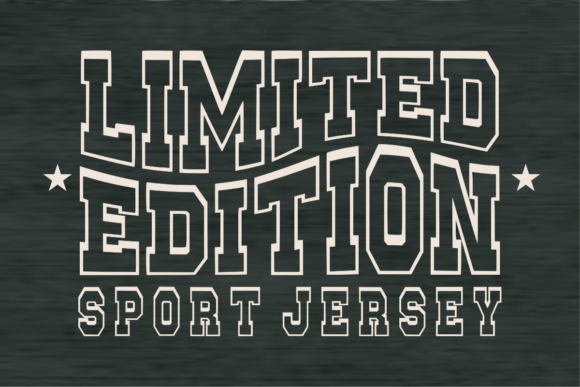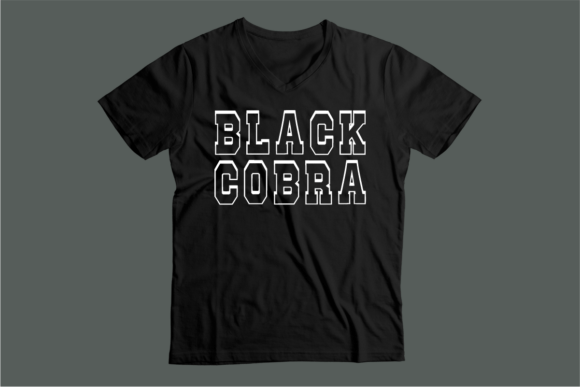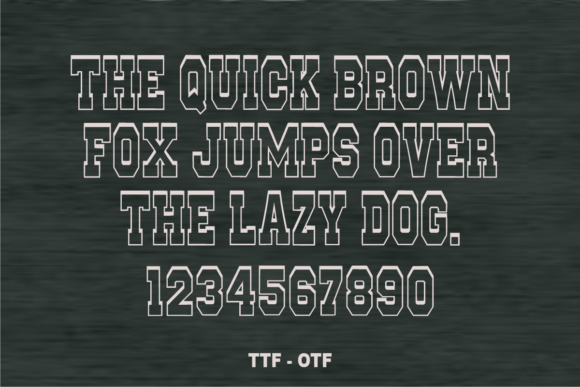
Introduction to Modern Outline Font
The Modern Outline font offers a crisp, athletic aesthetic that prioritizes visibility and modern style.
This Modern Outline typeface is the hollow counterpart to the jersey style, featuring thick, clean borders that make it ideal for layering over complex backgrounds or high-action photography Use the Modern Outline font for sports broadcasting graphics, fitness app interfaces, and bold street-wear branding.
Key Features of Modern Outline Font